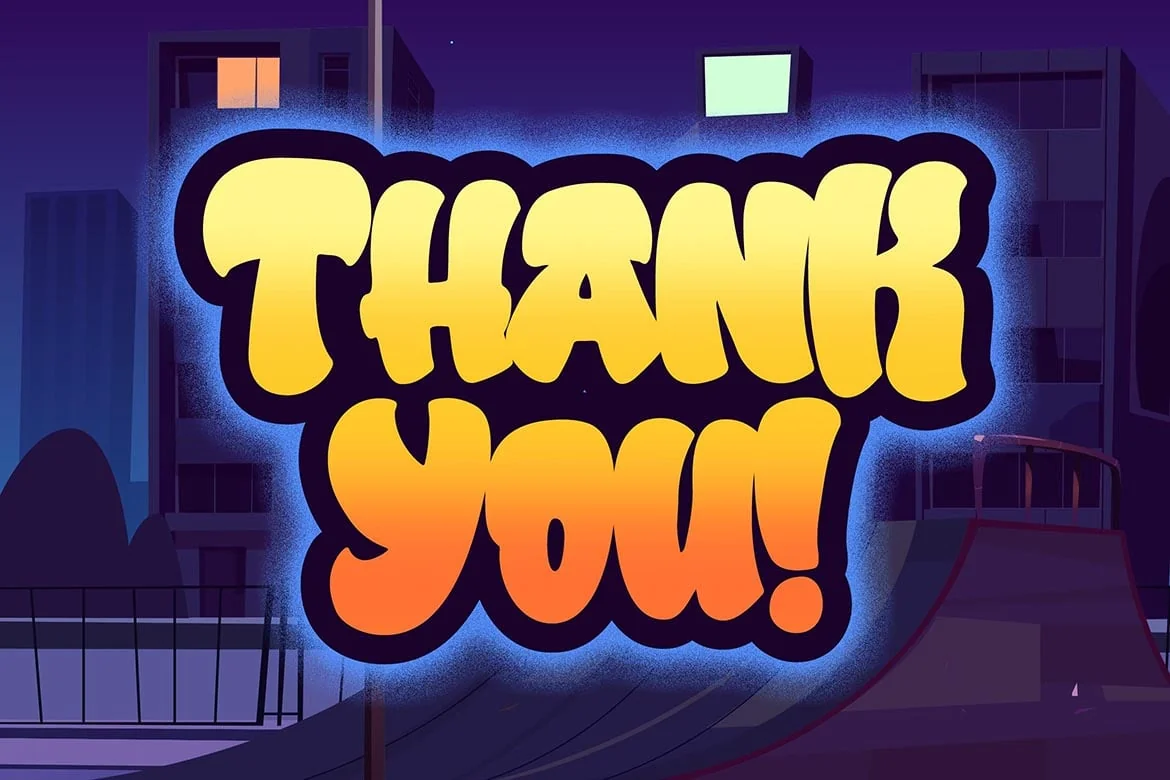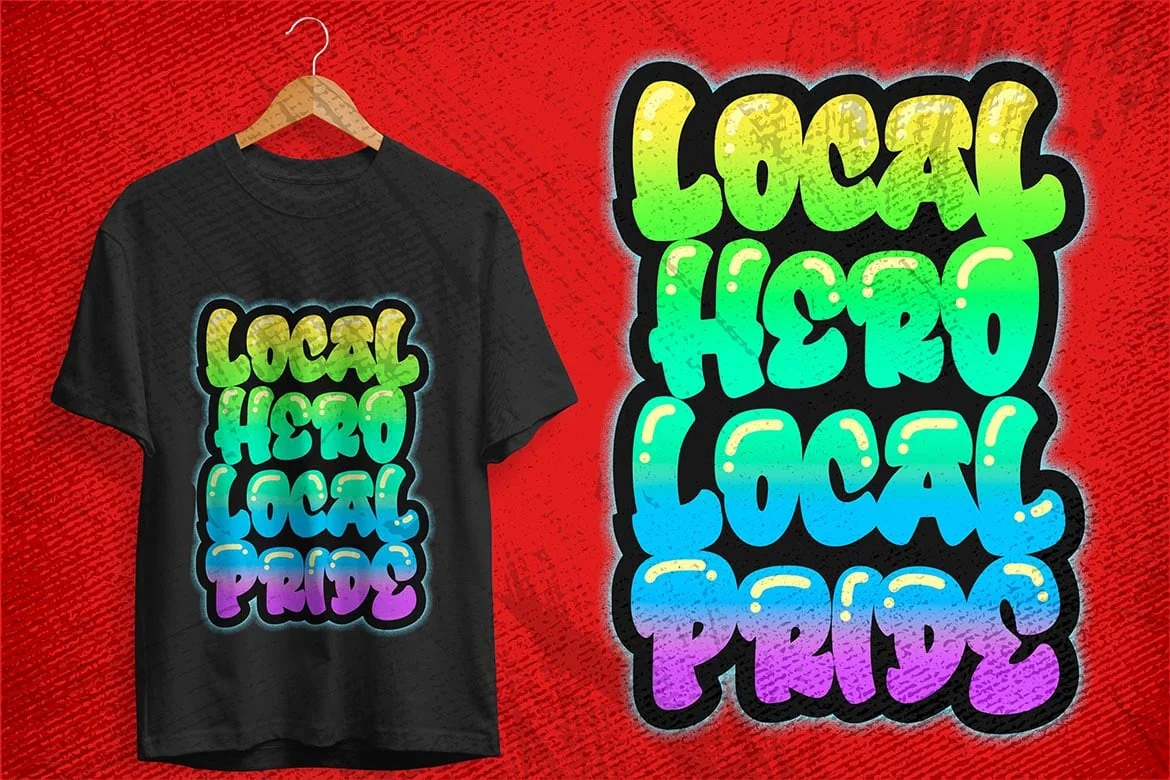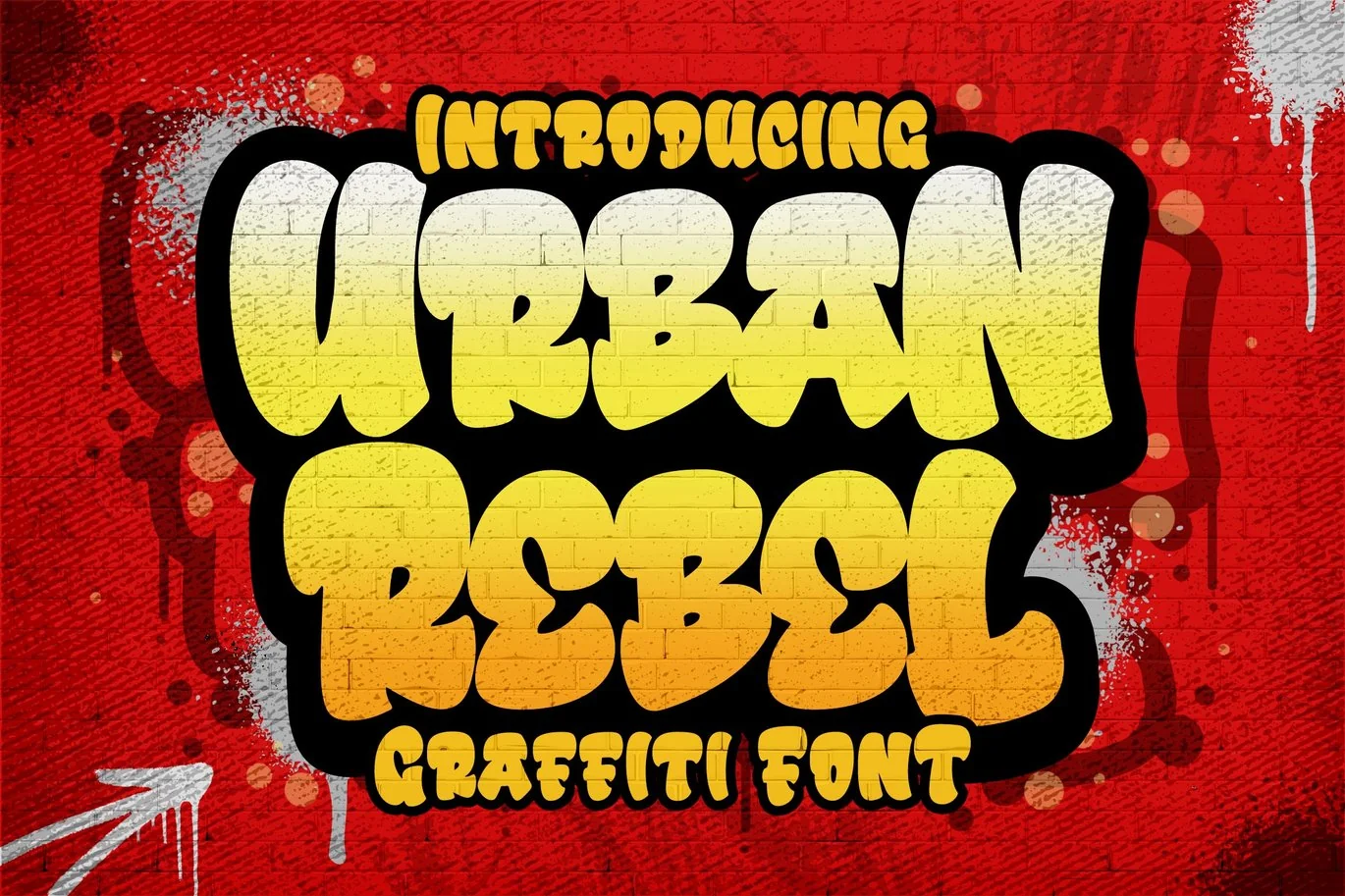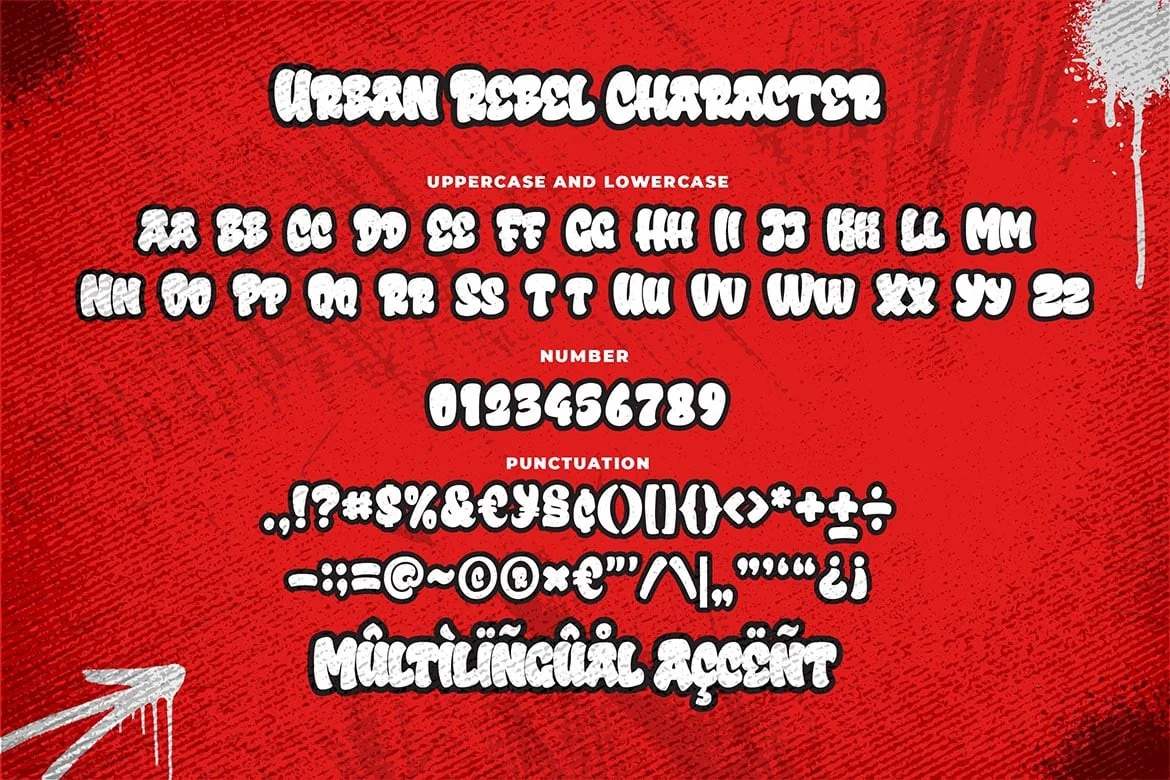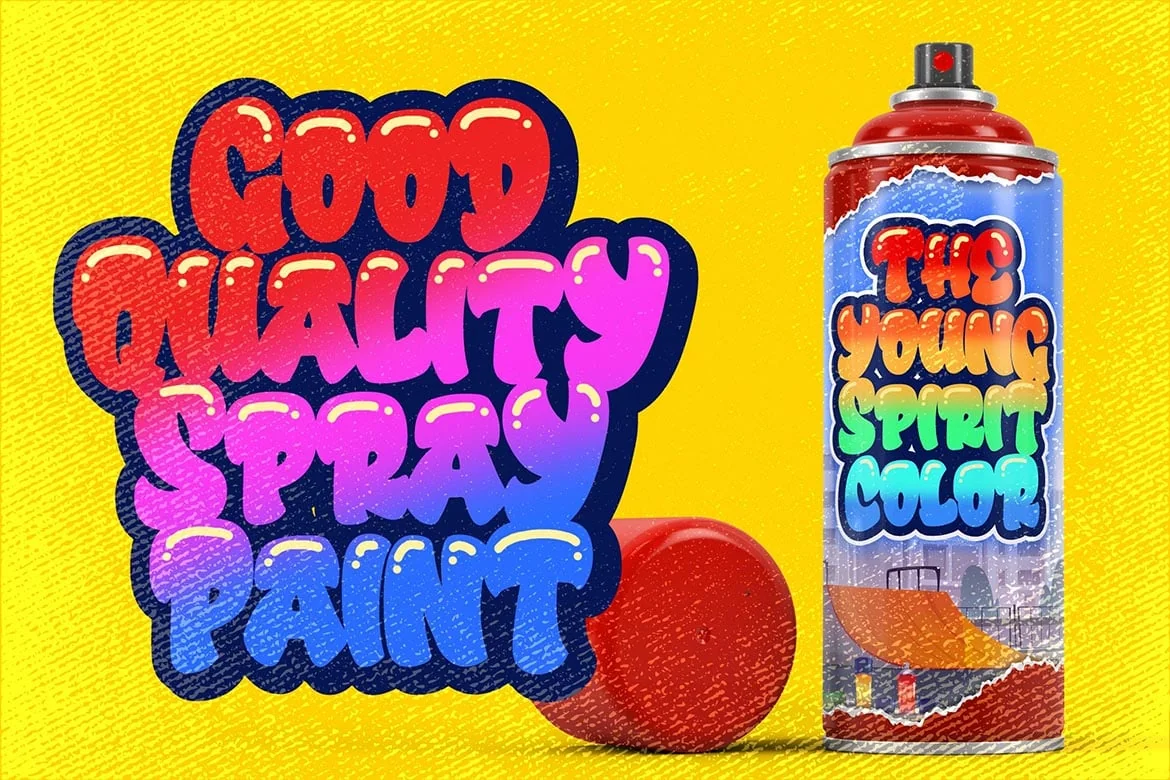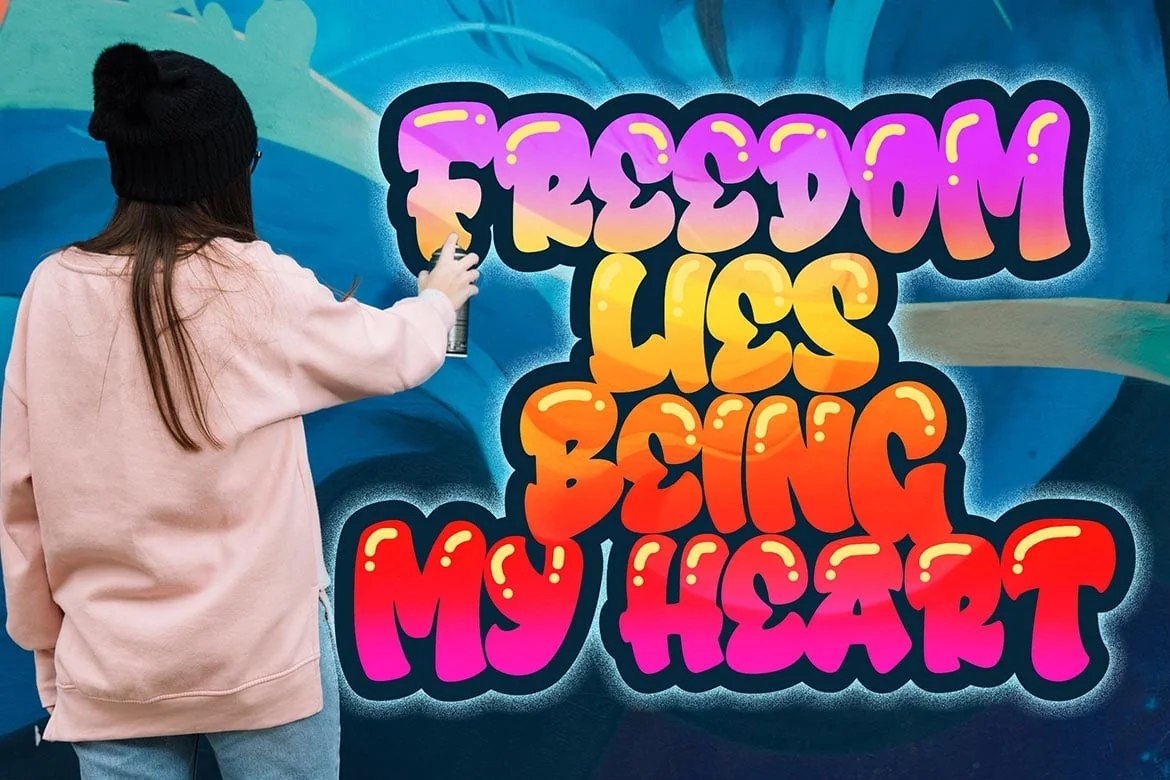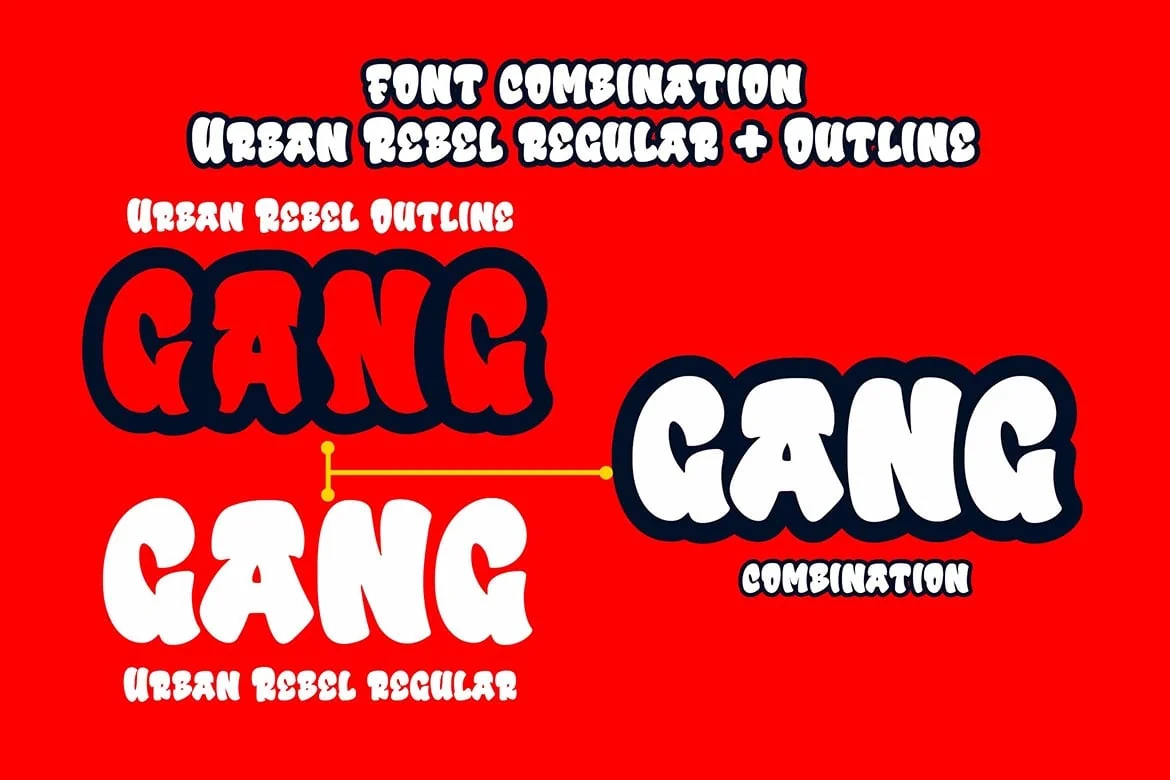
Urban Rebel a Graffiti Font
Introducing of our new product the name is Urban Rebel a Graffiti Font, Urban Rebel inspired by graffiti style with a fun theme very good for graffity poster, Hip Hop music, kids poster, flyer, childrenbook, cartoon, comic etc